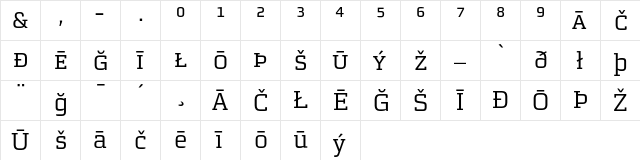
MorganAvec RegularPi Font Preview
MorganAvec RegularPi
Design Context for MorganAvec Typeface
MorganAvec is a composed and adaptable typeface that performs quietly and consistently across a wide range of design contexts.